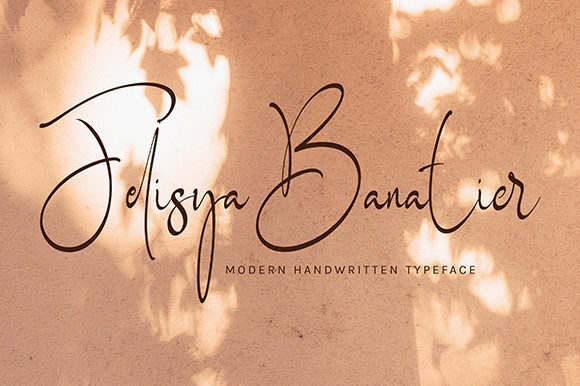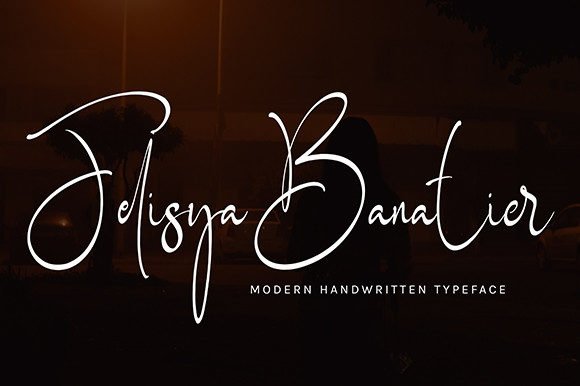
Introduction to Felisya Banatier Font
Felisya Banatier is a thin lettered and delicate handwritten font.
Fall for its dainty style and use it to create gorgeous designs This font is PUA encoded which means you can access all glyphs and swashes with ease.
Felisya Banatier Font offers exceptional quality and versatility, making it a valuable addition to your design toolkit. Whether you’re creating for personal projects or commercial use, Felisya Banatier Font delivers professional results.